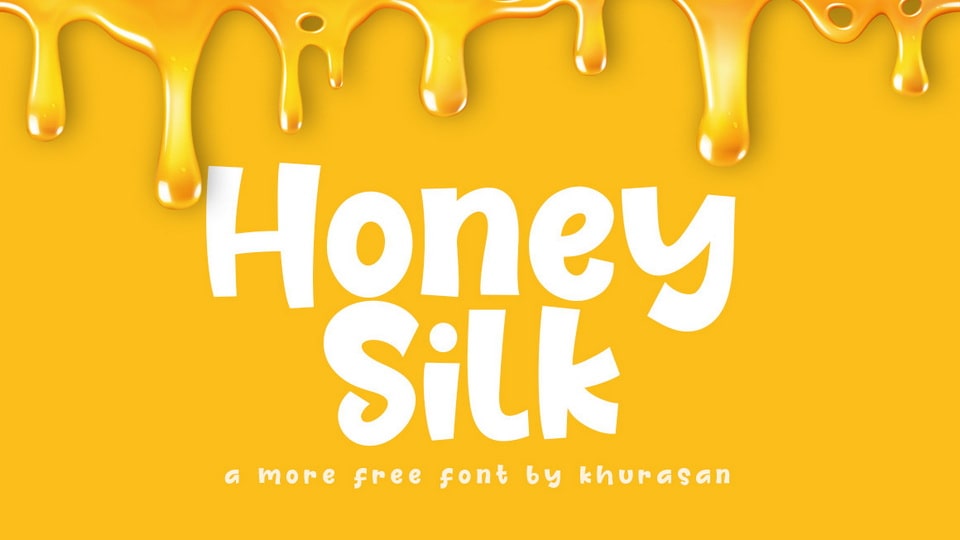
Download Honey Silk font, a funny and playful display typeface with a cartoon look. Honey Silk font is perfect for posters, logos, magazines, book covers, banners, and many more.